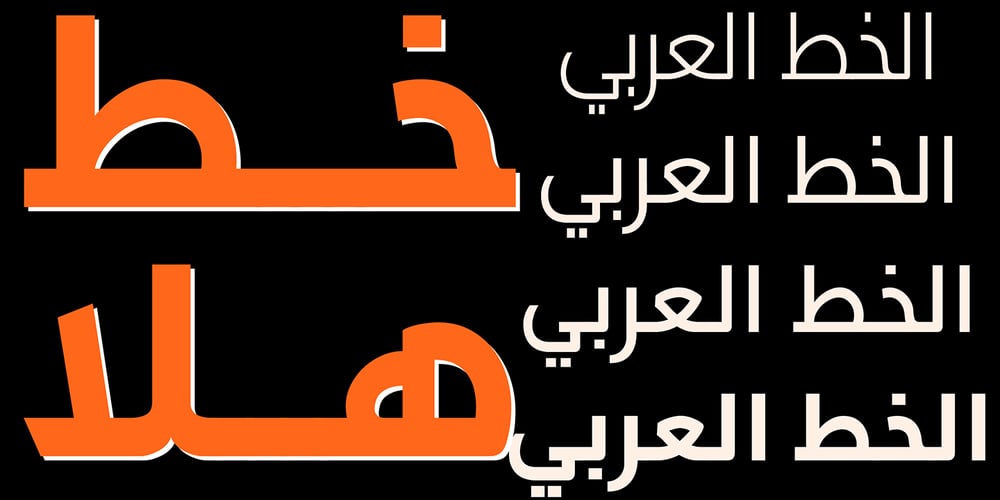
JH Hala
JH Hala font
JH Hala Font Family was designed by Joe Hatem and published by JH Fonts. JH Hala contains 4 styles and family package options. JH Hala is a modern style typeface; it is designed based on Koufi style & latin humanist sans serif classification, typical for corporate identity, branding & signage…